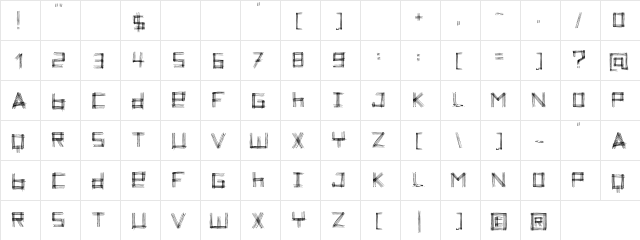
zohe zebra Regular Free Font
zohe zebra Regular
Design Context for zohe zebra
zohe zebra is a composed and adaptable typeface that performs quietly and consistently across a wide range of design contexts.